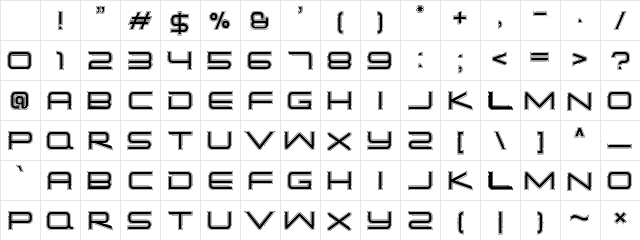
Complete Simple Tech Bold 02 glyph index. Displaying only characters natively supported by Simple Tech Bold 02 font.
Simple Tech Bold 02 has a distinctly futuristic character, with geometric precision and clean angles that feel at home in technology, gaming, and sci-fi contexts. Its bold stroke weight gives it real presence on the page.
Pro Tip: Try Simple Tech Bold 02 with generous letter-spacing in UI labels and navigation - the geometric forms benefit from room to breathe.